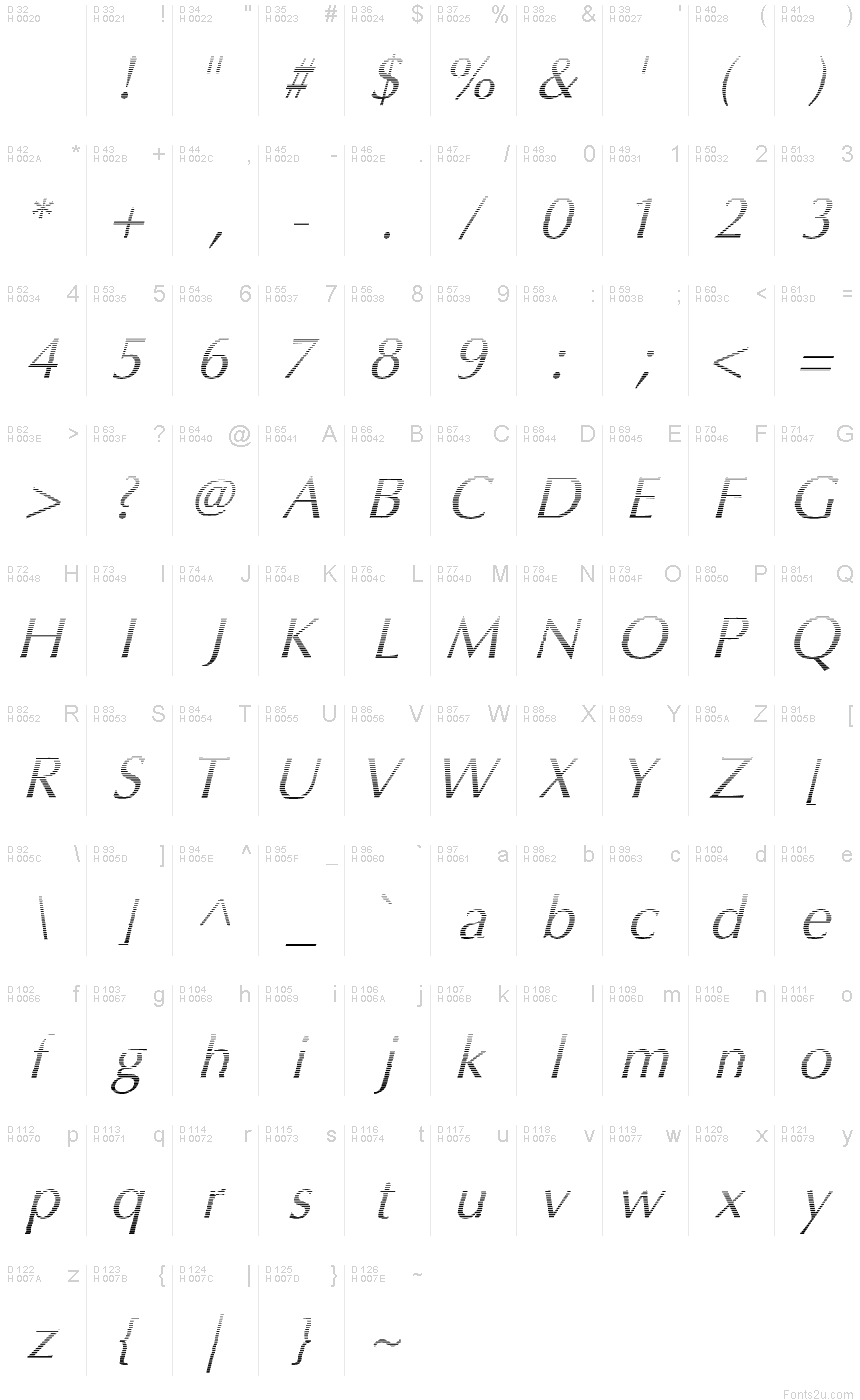
Oregon LDO Vanishing Oblique by Luke Owens is a free striped italic display font with elegant, sweeping letterforms. Fine horizontal breaks slice through every stroke, giving the lettering a flickering, half-seen texture. Strong stroke contrast keeps the shapes refined.
Fashion editorials and electronic music posters both benefit from its mix of sophistication and visual interference. It also suits album packaging and title sequences. The stylized motion will appeal most to designers working with experimental culture, nightlife, and retro-futurist themes.